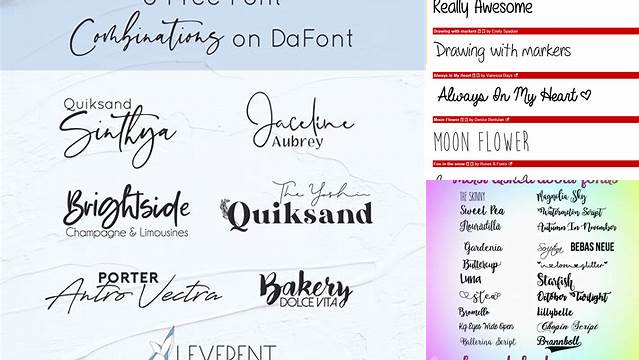
Top Script Fonts On DaFont: Free & Popular!
Hey guys! Are you on the hunt for some amazing script fonts to add a touch of elegance and personality to your projects? Look no further than DaFont, a treasure trove of free fonts just waiting to be discovered. Today, we're diving deep into the world of popular script fonts on DaFont, exploring everything from classic calligraphy styles to modern, whimsical designs. Whether you're designing invitations, logos, websites, or anything in between, we've got you covered with this comprehensive guide. So, buckle up and get ready to find your new favorite font!
1. Understanding Script Fonts
Before we jump into specific fonts, let's get a solid understanding of what script fonts actually are. Script fonts are typefaces that mimic the handwriting style, often appearing flowing and cursive. They come in a wide range of styles, from formal and elegant to casual and playful, making them incredibly versatile for various design projects. Think about the mood you want to create – a formal invitation might call for a delicate, classic script, while a fun social media graphic could benefit from a bolder, more modern style. Understanding the nuances of different script styles will help you choose the perfect font for your needs. Consider the legibility of the font as well; while a beautifully ornate script might look stunning, it's not ideal if it's difficult to read. The best script fonts balance aesthetics with readability.
2. The Allure of DaFont
3. Popular Calligraphy Script Fonts
When you think of classic elegance, calligraphy script fonts often come to mind. These fonts emulate the beautiful strokes of traditional calligraphy, making them perfect for wedding invitations, formal announcements, and other sophisticated designs. Some popular examples on DaFont include fonts that mimic Copperplate or Spencerian script styles, known for their graceful curves and refined appearance. These fonts often feature delicate hairlines and thick downstrokes, creating a visually stunning effect. However, they can sometimes be less legible at smaller sizes, so it’s essential to use them wisely. Consider pairing a calligraphy script font with a simpler sans-serif font for body text to ensure readability. Experiment with different weights and styles within the calligraphy category to find the perfect balance of beauty and clarity for your project. The beauty of calligraphy script fonts lies in their ability to convey a sense of timeless elegance and sophistication.
4. Modern and Contemporary Script Fonts
Moving away from tradition, modern and contemporary script fonts offer a fresh and stylish twist on handwritten styles. These fonts often feature cleaner lines, bolder strokes, and a more relaxed aesthetic, making them ideal for branding, logos, and website headers. You might find fonts that resemble brush lettering or marker writing, adding a touch of personality and energy to your designs. On DaFont, you'll discover a wide variety of these modern script fonts, ranging from sleek and minimalist to playful and quirky. These fonts are particularly effective for creating a sense of authenticity and approachability. They can also be incredibly versatile, working well in both digital and print formats. When selecting a modern script font, consider the overall tone and message of your project. A bold, brush-style script might be perfect for a trendy cafe logo, while a cleaner, more minimalist script could be ideal for a sophisticated brand identity.
5. Casual and Playful Script Fonts
For projects that need a touch of fun and informality, casual and playful script fonts are the way to go. These fonts often feature uneven baselines, whimsical letterforms, and a hand-drawn feel, making them perfect for children's books, social media graphics, and informal invitations. Think about fonts that look like they were written with a crayon or marker, adding a personal and approachable touch. DaFont is packed with these playful script fonts, offering a vast selection of styles to choose from. These fonts can add a lot of character to your designs, but it’s important to use them judiciously. Too much playfulness can detract from the overall message, so consider pairing them with more neutral fonts for balance. The key to using casual script fonts effectively is to ensure they complement the content and tone of your project, creating a cohesive and engaging visual experience.
6. Elegant and Formal Script Fonts
When you need to convey sophistication and grace, elegant and formal script fonts are your best friend. These fonts often feature flowing lines, delicate details, and a sense of timeless beauty, making them perfect for wedding invitations, certificates, and high-end branding. Think about fonts that mimic traditional calligraphy or Spencerian script, exuding an air of refinement and luxury. DaFont offers a beautiful selection of these elegant script fonts, ranging from classic styles to more modern interpretations. When using these fonts, pay close attention to kerning and letter spacing to ensure optimal readability and visual appeal. Elegant script fonts can be incredibly powerful in conveying a sense of prestige and sophistication, but they should be used sparingly to avoid overwhelming the design. Consider using them for headlines or accents, pairing them with a simpler font for body text.
7. Vintage and Retro Script Fonts
Bring a touch of nostalgia to your designs with vintage and retro script fonts. These fonts evoke the charm and character of past eras, from the Art Deco elegance of the 1920s to the mid-century modern flair of the 1950s. They often feature distinctive letterforms, unique flourishes, and a slightly distressed texture, adding a sense of authenticity and history to your projects. On DaFont, you'll find a fantastic array of retro script fonts, perfect for posters, logos, and branding projects that aim to capture a vintage aesthetic. When using these fonts, consider the historical context and ensure they align with the overall theme and message of your design. Vintage script fonts can be a fantastic way to add personality and visual interest, but it’s important to use them thoughtfully to create a cohesive and impactful design.
8. Brush Script Fonts
Brush script fonts mimic the look of handwriting created with a brush, offering a dynamic and expressive style. These fonts often feature varying stroke widths, creating a sense of movement and energy. They're perfect for adding a personal touch to logos, quotes, and social media graphics. DaFont boasts a wide selection of brush script fonts, ranging from bold and dramatic to delicate and refined. The versatility of brush scripts makes them suitable for a range of projects, but it's important to choose a style that aligns with your overall design aesthetic. Consider the legibility of the font, especially at smaller sizes. A well-chosen brush script font can add a touch of artistry and handcrafted charm to your designs.
9. Cursive Script Fonts
Cursive script fonts are designed to replicate traditional cursive handwriting, characterized by flowing connections between letters. These fonts can range from formal and elegant to casual and playful, making them a versatile choice for various design needs. DaFont offers numerous cursive script fonts, providing options for everything from wedding invitations to branding materials. When selecting a cursive script font, legibility is key. Choose a font that's easy to read while maintaining its stylistic appeal. Consider the overall tone you want to convey – a formal cursive script might be perfect for an elegant event, while a more relaxed style could suit a casual project. The right cursive script font can add a touch of personality and sophistication to your designs.
30. Future of Script Fonts on DaFont and Beyond
The future of script fonts on DaFont and beyond looks bright, with continuous innovation and creativity in typeface design. As digital design evolves, we can expect to see new styles and variations of script fonts emerge, incorporating modern techniques and technologies. DaFont will likely remain a key platform for discovering these fonts, offering a diverse range of options for designers and creatives. Trends in script fonts may include more experimental and artistic styles, as well as fonts that are optimized for digital screens and responsive design. Variable fonts, which allow for dynamic adjustments to weight, width, and other characteristics, may also play a significant role in the future of script typography. Staying informed about these developments will help designers leverage the latest script fonts effectively, enhancing their creative projects and visual communications. The ongoing evolution of script fonts promises to bring even more personality and expression to the world of typography.